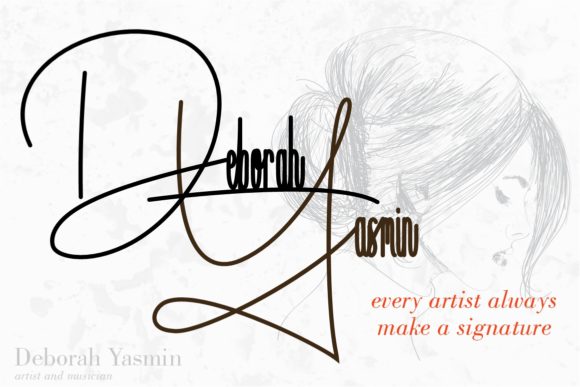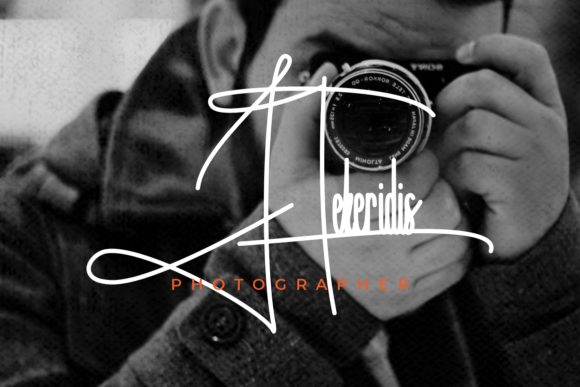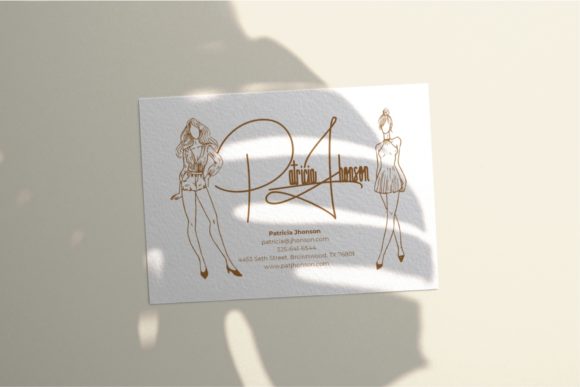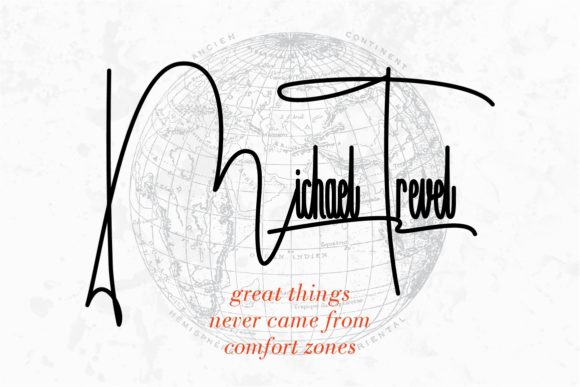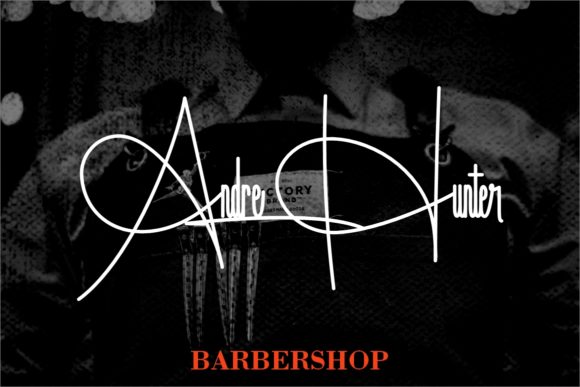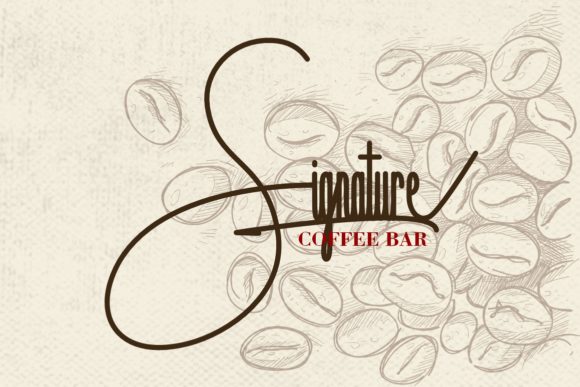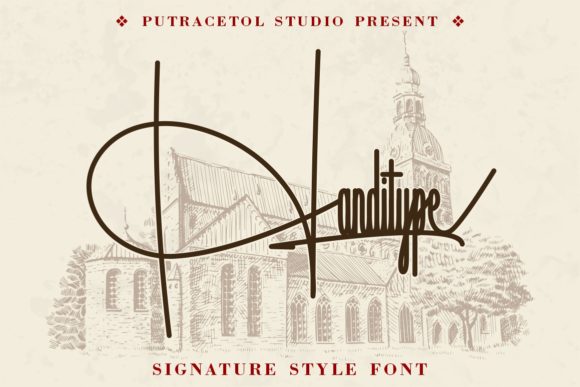
Introducing Handitype Font: The Perfect Blend of Elegance and Friendliness
Are you a designer or crafter looking for a font that exudes timeless elegance and authentic calligraphy? Look no further than Handitype Font. This magical signature font is carefully crafted with a touch of sophistication, making it the perfect addition to your design arsenal. In this article, we’ll dive into the world of Handitype, exploring its features, benefits, and uses.
The Story Behind Handitype
Handitype Font is a beautiful combination of classic style and friendly feel. Its creators aimed to design a font that would evoke a sense of nostalgia while still being approachable and modern. The result is a font that is both elegant and inviting, perfect for a wide range of design projects.
Key Features of Handitype Font
- Timeless Elegance: Handitype boasts an incredibly classic style that will add a touch of sophistication to any design.
- Authentic Calligraphy: The font features authentic calligraphy elements, giving it a personal and human touch.
- Friendly Feel: Despite its elegant nature, Handitype still manages to convey a sense of friendliness and approachability.
- Versatility: Handitype is suitable for a wide range of design projects, from branding and advertising to packaging and digital media.
Benefits of Using Handitype Font
So, why should you choose Handitype Font for your next design project? Here are just a few benefits:
- Stand out from the crowd: With Handitype, you can create original and outstanding designs that will set you apart from the competition.
- Convey your brand’s personality: The font’s unique blend of elegance and friendliness makes it perfect for brands looking to convey a sense of sophistication and approachability.
- Easy to use: Handitype is a highly legible font, making it easy to use in a variety of design contexts.
Design Ideas Using Handitype Font
Handitype Font is incredibly versatile, making it suitable for a wide range of design projects. Here are a few ideas to get you started:
- Branding and Logo Design: Use Handitype to create a sophisticated and memorable logo that will help establish your brand’s identity.
- Wedding and Event Design: The font’s elegant and calligraphic nature makes it perfect for wedding invitations, programs, and other event materials.
- Packaging Design: Add a touch of luxury to your packaging with Handitype, making your products stand out on store shelves.
- Digital Media: Use Handitype in your digital designs, such as social media graphics, email headers, and blog posts, to add a touch of elegance and sophistication.
In conclusion, Handitype Font is a magical signature font that offers the perfect blend of timeless elegance and authentic calligraphy. Its friendly feel and versatility make it an excellent choice for designers and crafters looking to create original and outstanding designs. Whether you’re working on a branding project, wedding design, or packaging, Handitype is sure to impress. So why not give it a try and experience the magic of Handitype for yourself?